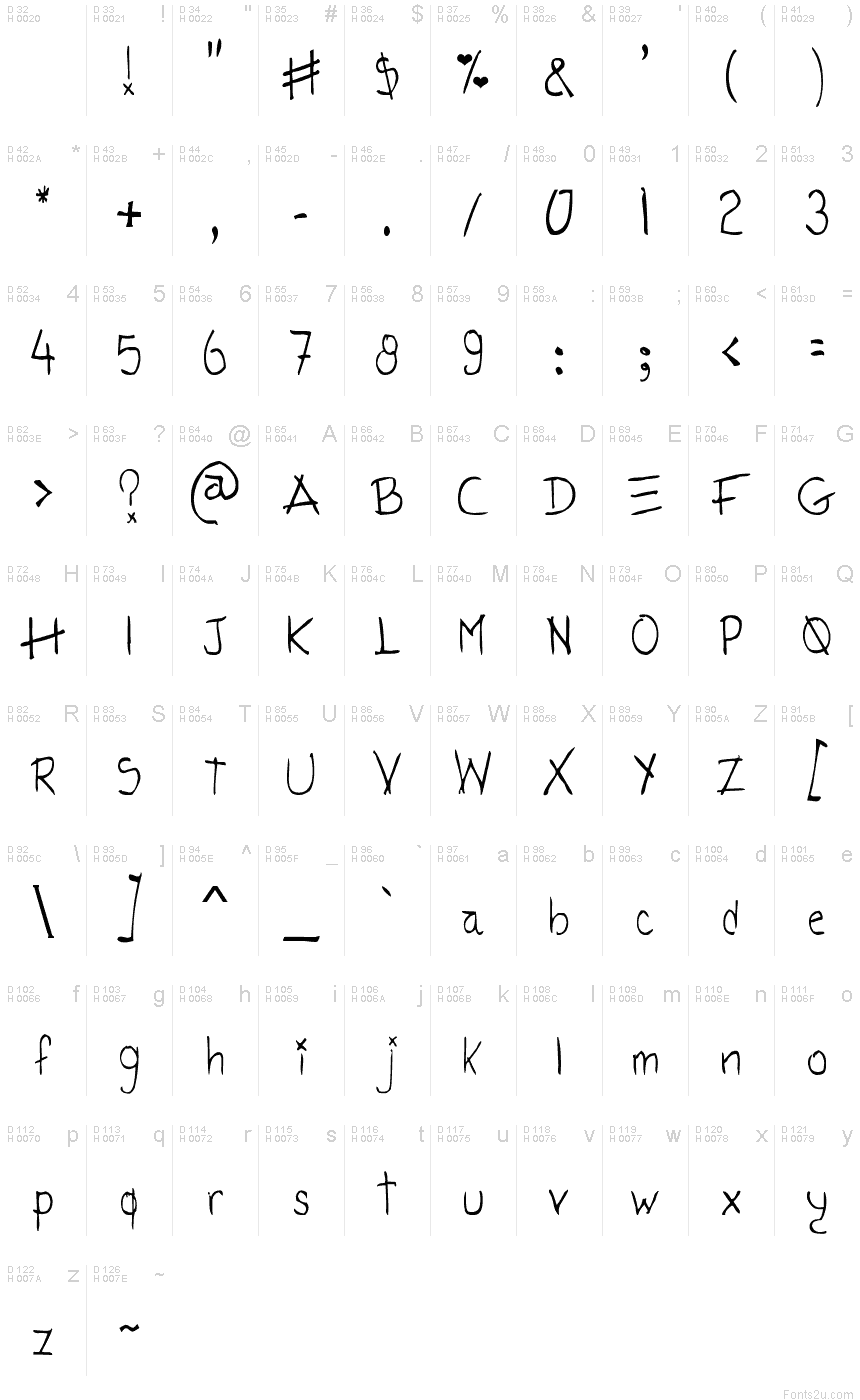
Tatida Rocking by Juan Casco is a free handwritten display font with tall, wiry letters and the quick uneven stroke of pen lettering. Its narrow forms, changing line weight, and slightly awkward joins give the writing an unpolished, personal edge.
Music posters are its strongest setting. The restless hand-drawn quality fits indie and DIY themes and can also shape album artwork, youth fashion branding, and informal event graphics. In editorial design, it can turn a magazine cover line into part of the illustration, especially for stories about bands, street culture, or personal creativity.